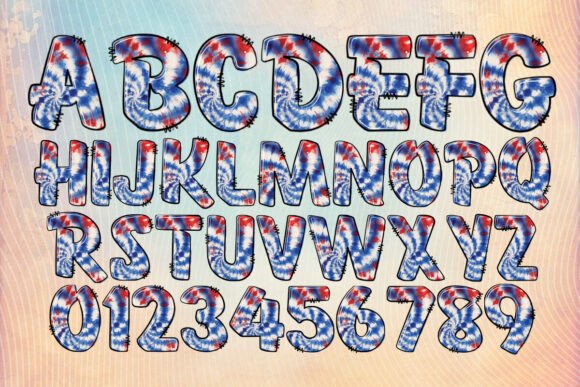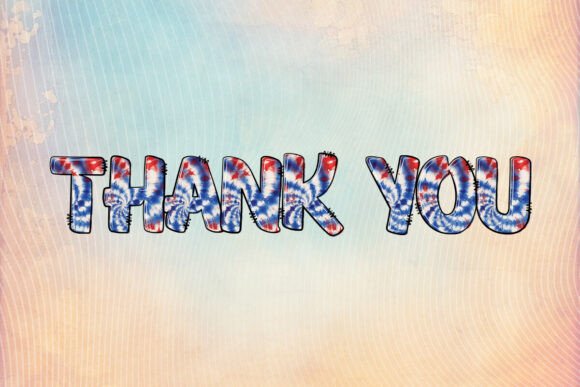
Introduction to Patriotic Us Font
As you sit down to create a design for a summer project, the excitement builds, and the possibilities are endless. But, what’s missing is that perfect spark that captures the essence of the season. For designers who want to infuse their creations with a dash of American spirit, the USA Independence Day Patriotic Alphabet font is here to ignite their imagination. This unique font, available for free download, is a must-have resource for any designer looking to create high-quality designs that reflect the vibrant hues of the USA.
Whether you’re working on a design project for a local business or a personal creative endeavor, the Patriotic Us Font is an invaluable asset. With its transparent background, this font is versatile and easy to integrate into any design. By incorporating this dynamic set of 24 alphabetic characters and 10 numerals, you’ll be able to bring your ideas to life and mirror the patriotism that makes America so unique.
Patriotic Us Font
- Unique blend of bold and elegant lettering, perfect for creative projects.
- Includes a range of letter and punctuation marks, ideal for use in creative projects and design resources.
- Supports a wide range of languages, making it a versatile design resource.
- Comes in a single font size, with scalable options for easy integration into various design projects.
Honest Review: Patriotic Us Font
I recently had the chance to work with the Patriotic Us Font, and I have to say it’s been a game-changer for my design projects. The font is incredibly versatile and can be used for a wide range of creative projects, from graphic design to web design.
Here are some of the things that stood out to me:
- ✨ High-quality design: The font is crisp and clean, making it perfect for high-end design projects.
- ✨ Transparent background: The font has a transparent background, making it easy to use with any design element.
- ⚠️ Limited font weights: I wish the font had more weights and styles to choose from.
- ⚠️ Not ideal for small text: The font can be a bit difficult to read in small text sizes.
Overall, I’m really impressed with the Patriotic Us Font. It’s a great design resource that can add a lot of value to your creative project. Just be aware of its limitations, and you’ll be golden.
The Patriotic Us Font is a versatile font that can be used in a variety of creative projects, including patriotic designs, holiday cards, and patriotic-themed presentations. Its transparent background makes it easy to use on any background color.
To get the most out of the Patriotic Us Font, use it in conjunction with other design resources, such as graphics and images. Experiment with different font sizes and colors to add visual interest to your design. The Patriotic Us Font is a high-quality design resource that can help take your creative project to the next level.